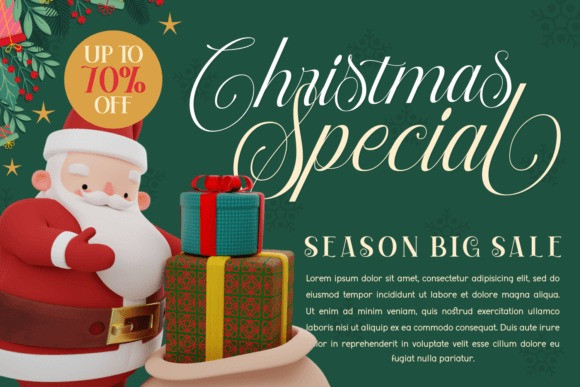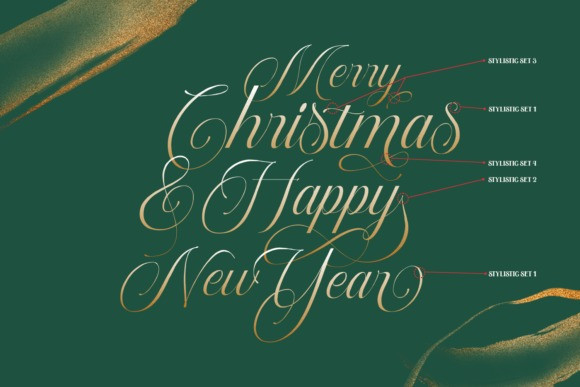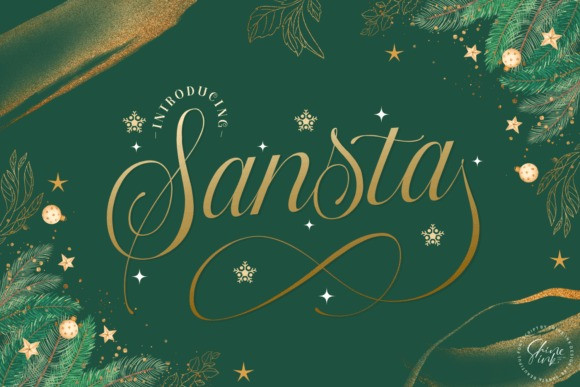
Sansta Font
Sansta Calligraphy Font is a sweet and festive handwritten script font. Let yourself be inspired by its warmth and charm and use it to create stunning Christmas designs.